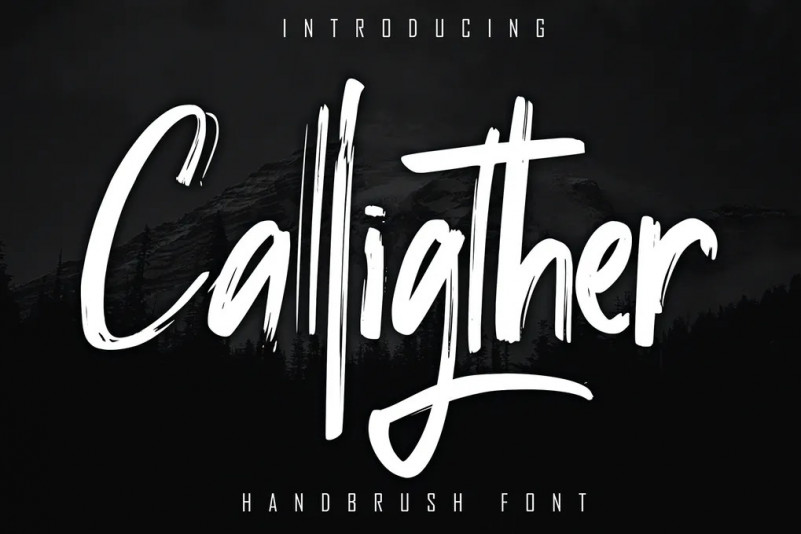
Calligther Font
Calligther was inspired by the Handwritten of natural brushes. Written in quick motion using a brush pen, it’s a bit dry and looks realistic. It is suitable for commercial needs or magazine fashion design, offer logos, product packaging, headlines, posters, film,merchandise, social media & other greeting cards.